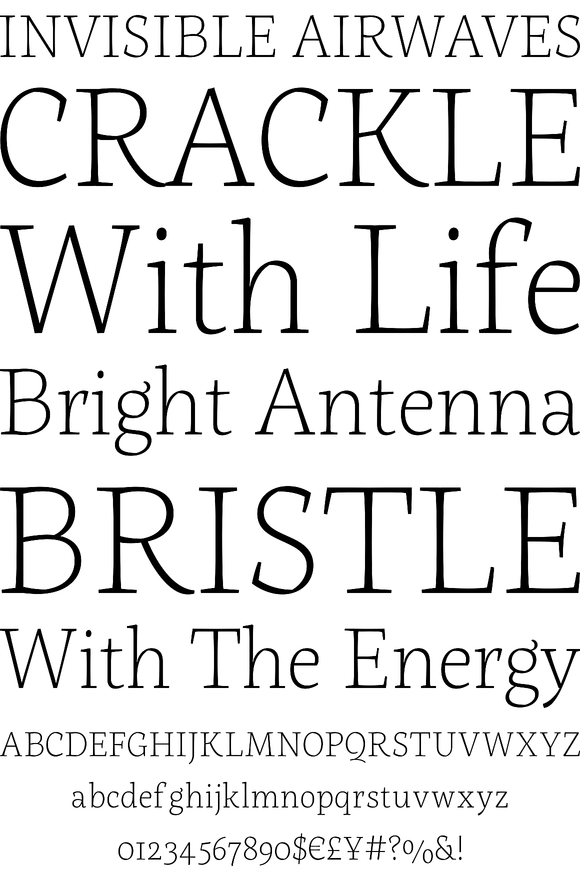
Servus Slab Font
This family is very special to me. I started working on it right after my first son was born. I decided to name the typeface “Servus” which means “Hello” in my country. The whole idea of the family symbolizes a child’s growth. It starts with Thin and Narrow weights - just like a newborn baby - then it slowly grows to Black and Wide. As You can guess, my son is quite chubby now!
And I can assure you that I put all my love into details.
Servus consists of 9 weights which gives us 18 fonts with matching italics. Lights and Bolds, due to their strong personality, are perfect for display uses. At the same time, Regulars create a harmonious structure that provides good legibility in long texts. Servus covers all latin languages. It contains a wide set of numerals, small capitals, fractions, ligatures and other OpenType goodies.